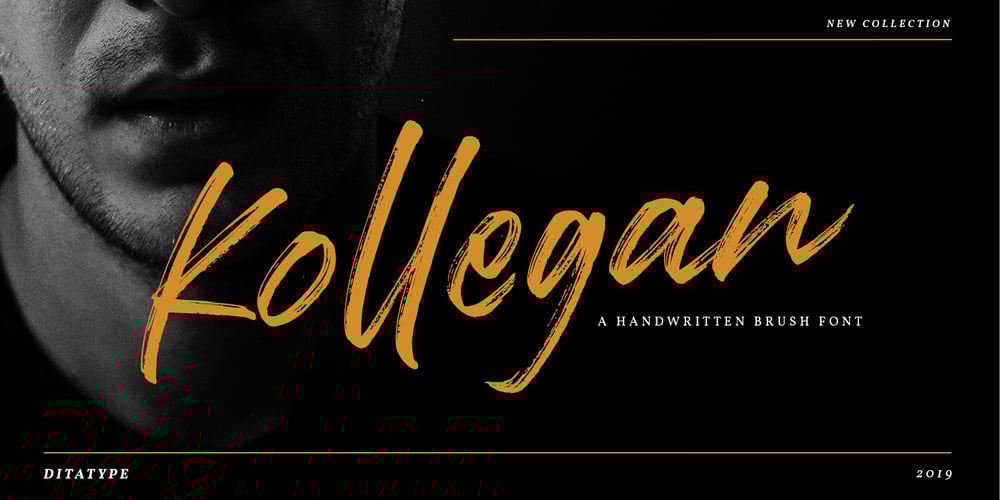
Kollegan
Kollegan font
Kollegan Font Family was designed by Donis Miftahudin and published by Ditatype. Kollegan contains 1 styles and family package options. Kollegan is a casual, fun handwritten font, created by using a brush pen. Clean and a little bit quirky, this font is the perfect fit for all of your logos, branding, social media, and crafty DIY projects.Featured : Accents (Multilingual characters) PUA encoded Numerals and Punctuation (OpenType Standard) Full Support Dita Type